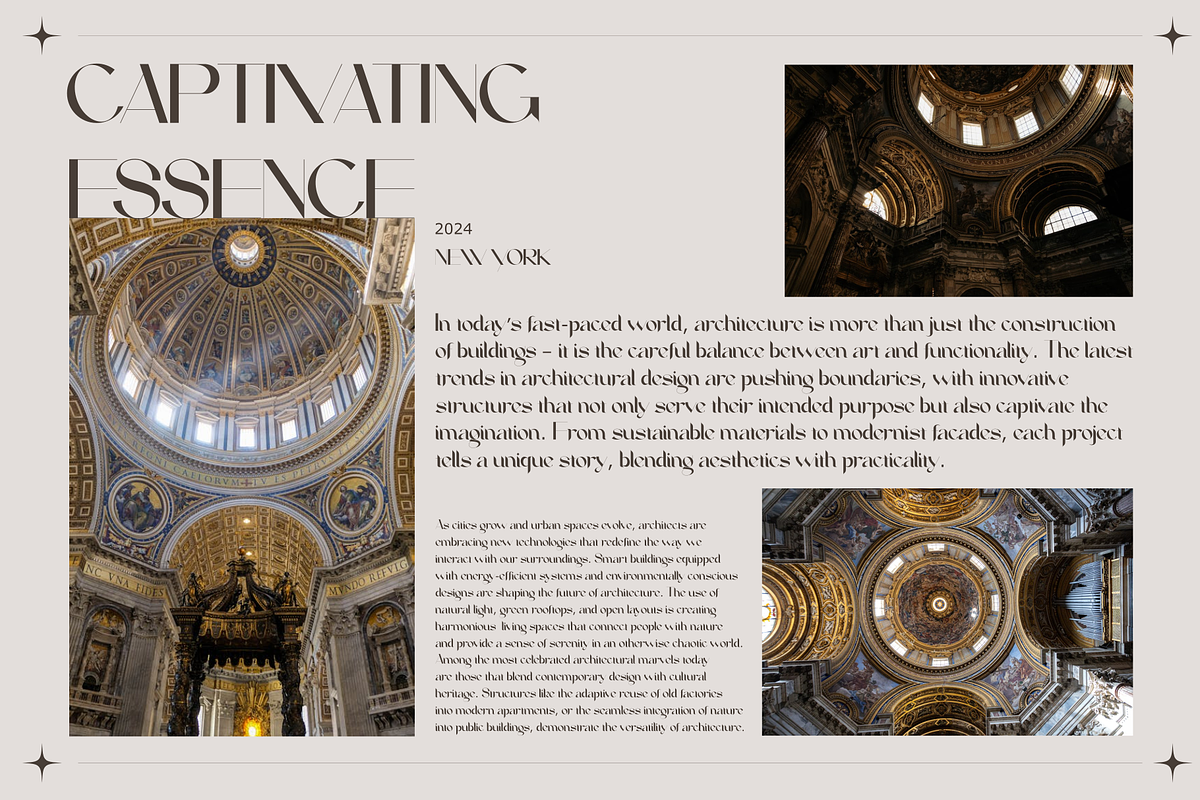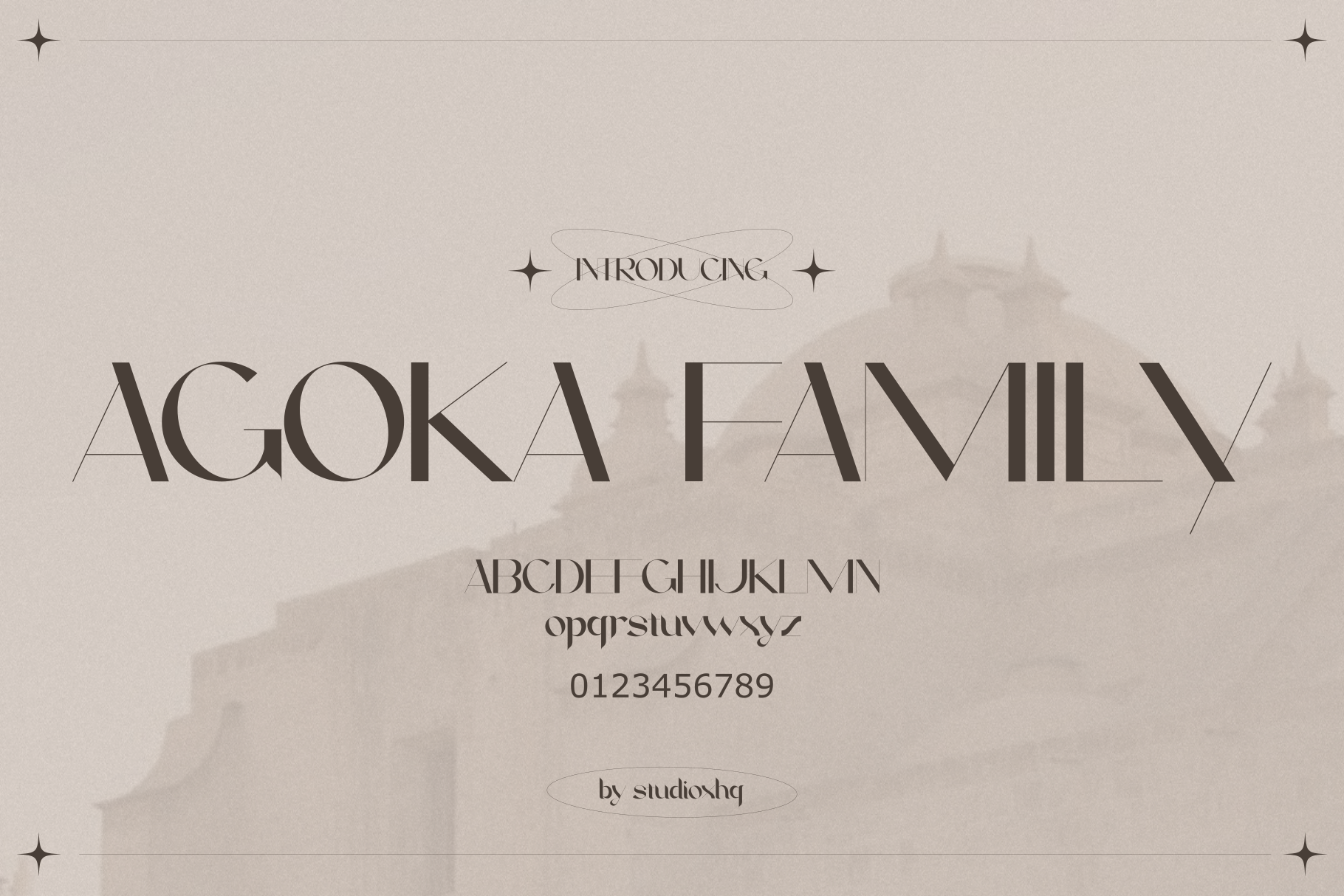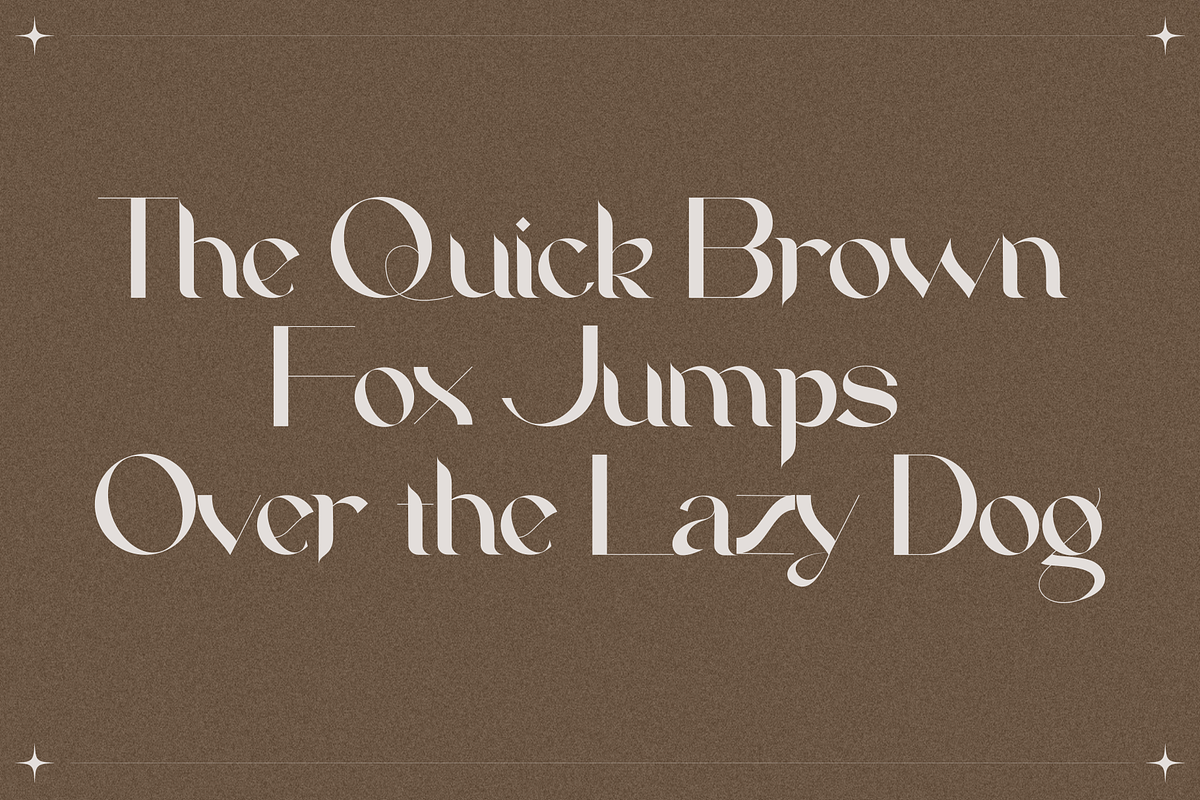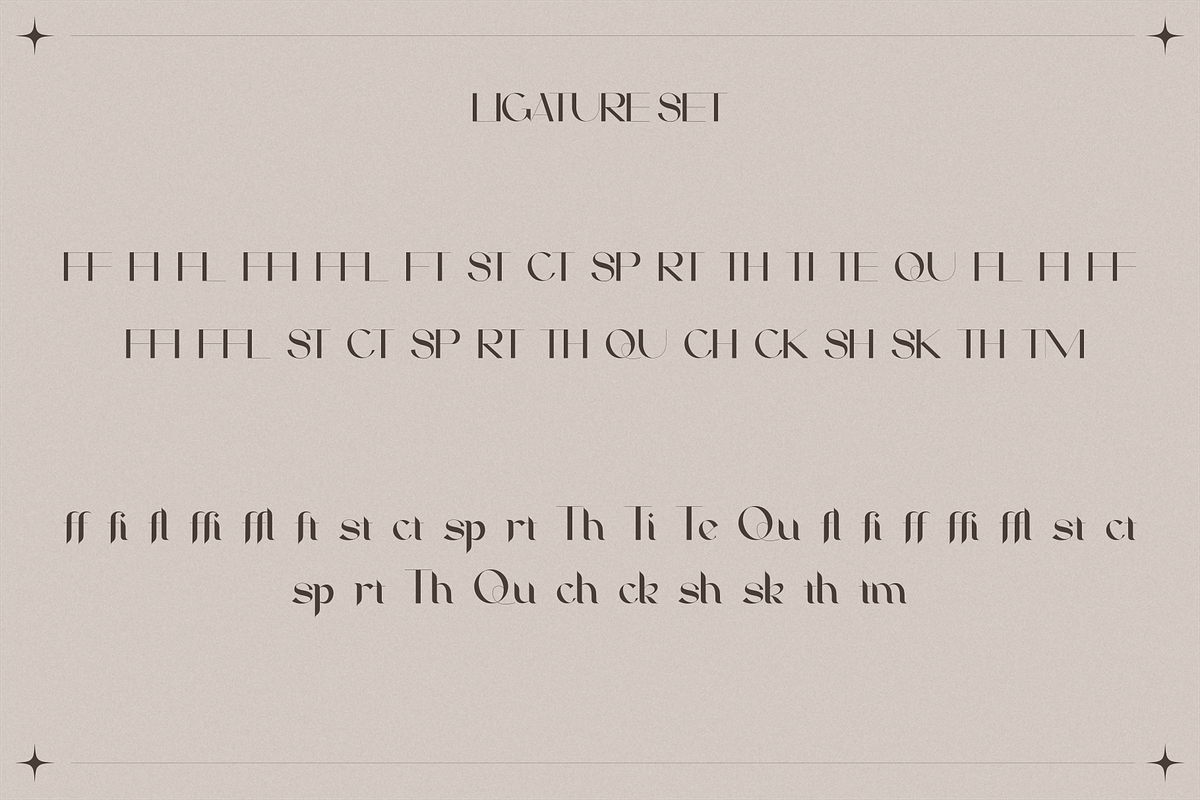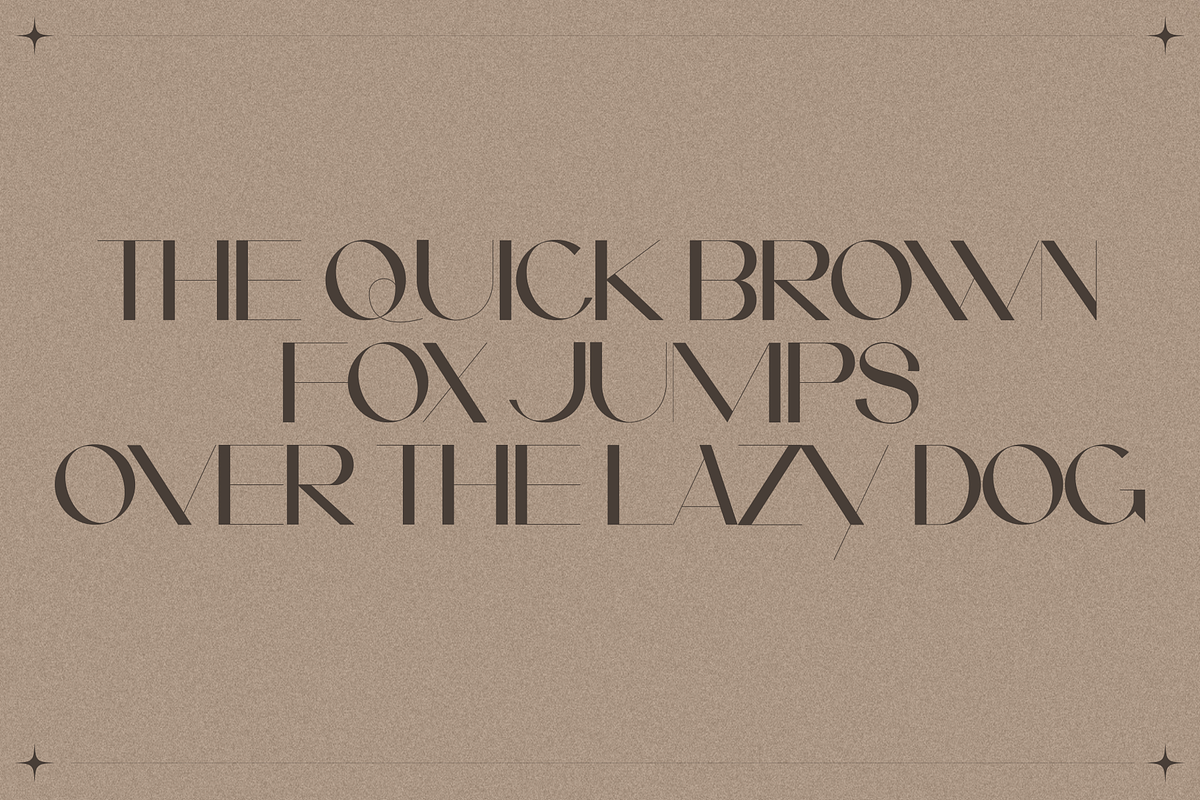
Agoka Family Sans-Serif Typeface
Agoka Family Font – Modern, Geometric Sans-Serif Typeface
Introducing the Agoka Family Font, a sleek, modern, and versatile sans-serif typeface designed for clean, contemporary designs. With its geometric shapes and balanced proportions, this font is perfect for logos, branding, websites, and any project that needs a professional, minimalist touch. Available in multiple weights, Agoka adds a sophisticated, legible feel to both print and digital designs. Elevate your next creative project with this stylish and timeless font family!
- Multiple weights for flexibility
- Ideal for logos, branding, and web design
- Clean, modern sans-serif style
- Easy-to-read and professional